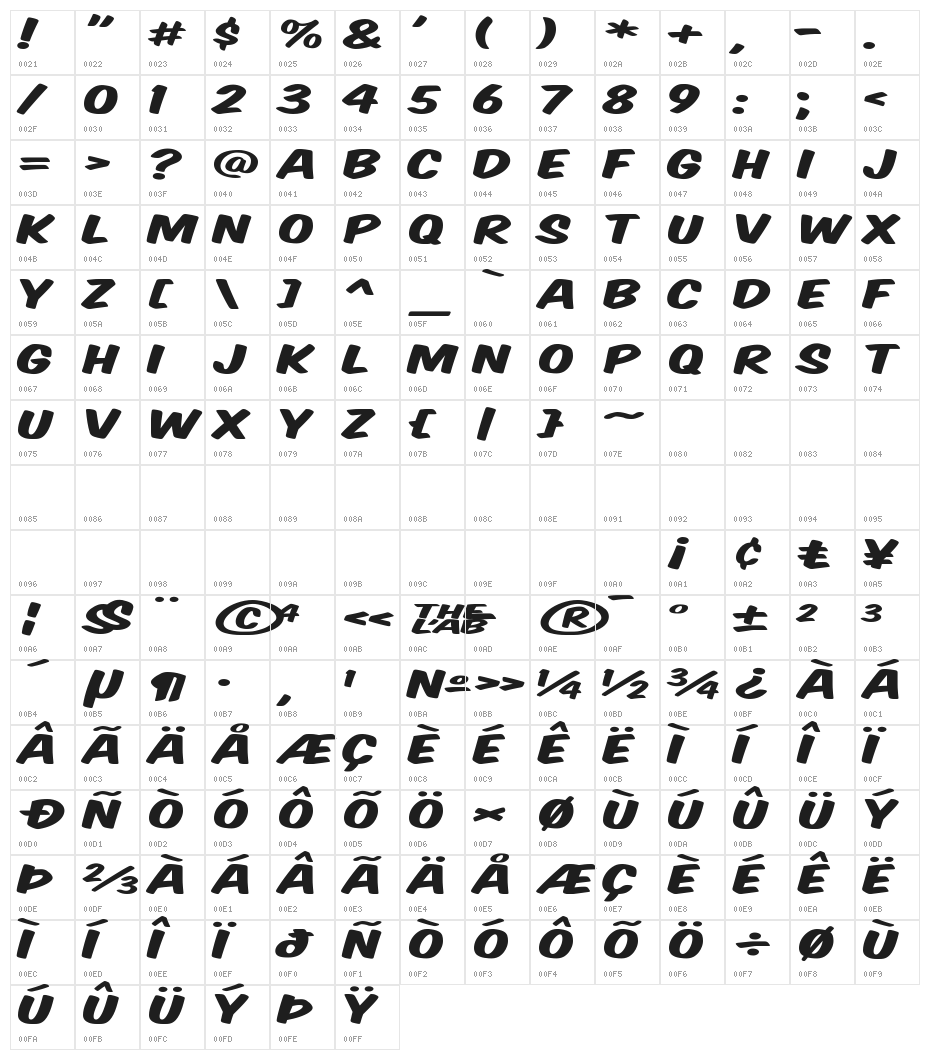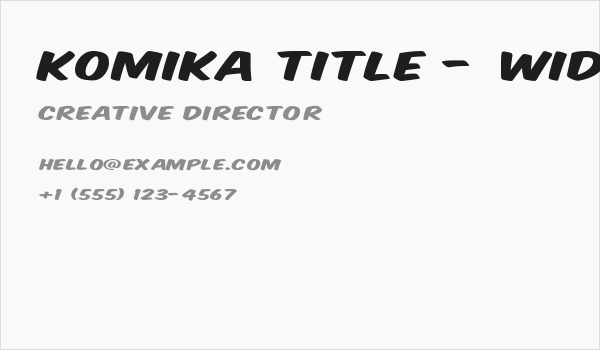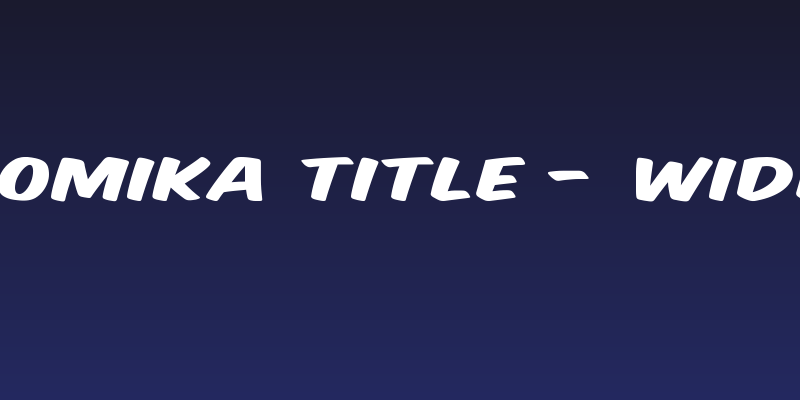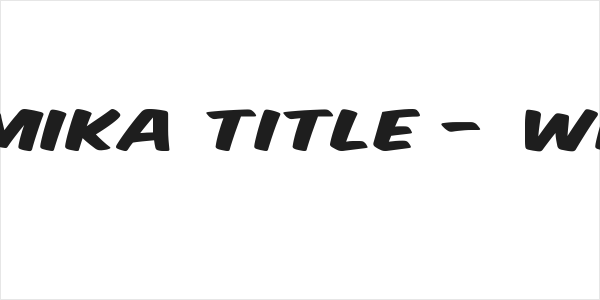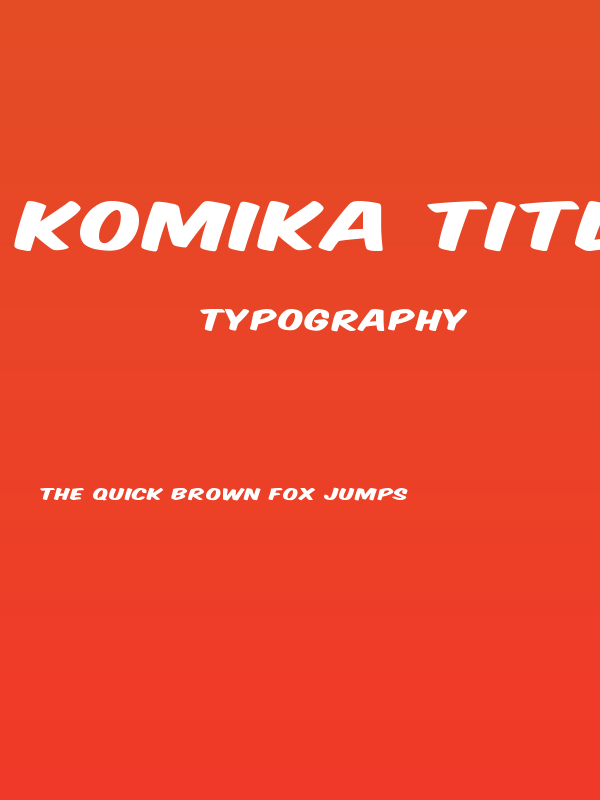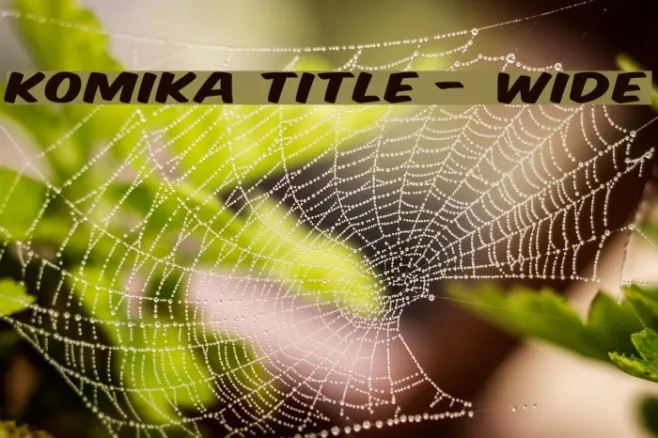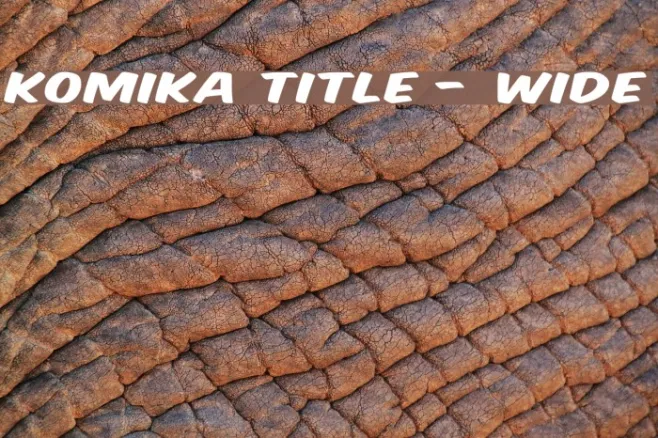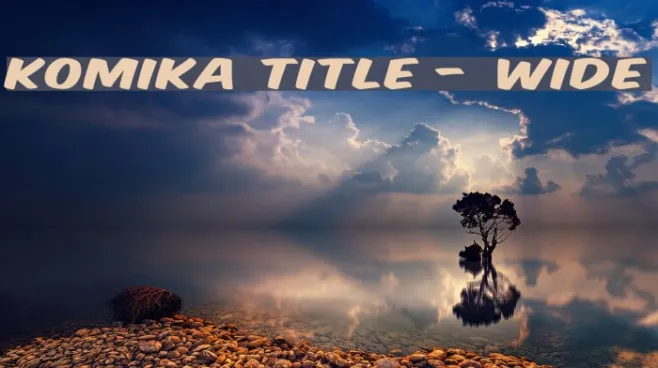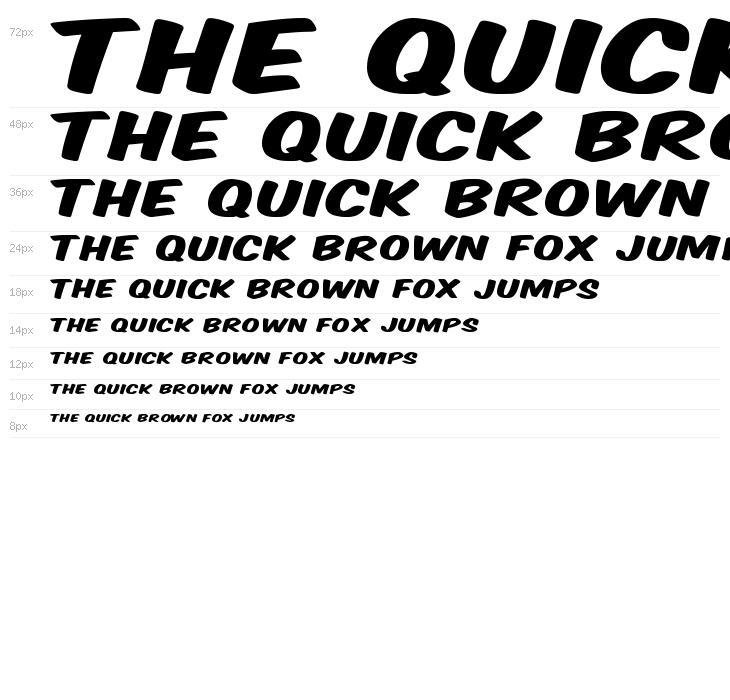
Komika Title - Wide Font
Komika Title - Wide Description
This font features bold, playful characters with a slightly slanted orientation, giving it a dynamic and energetic appearance. The letters are thick and rounded, providing a friendly and approachable feel. The font maintains a consistent stroke width throughout, contributing to its bold presence. It is well-suited for capturing attention and conveying a sense of fun and excitement. The characters are evenly spaced, ensuring readability while maintaining a compact look. This style is ideal for projects that require a lively and informal tone.
| Proposed Projects | Comic books, children's books, playful branding, posters, and event flyers. |